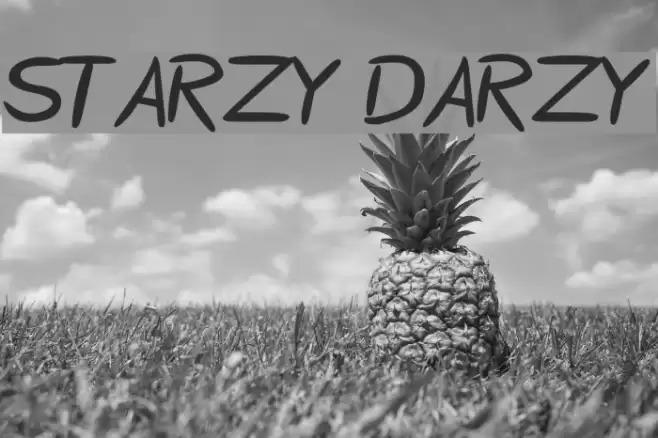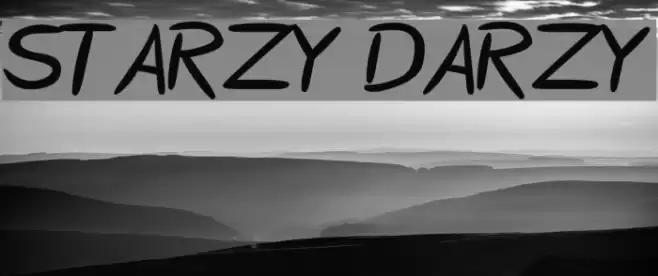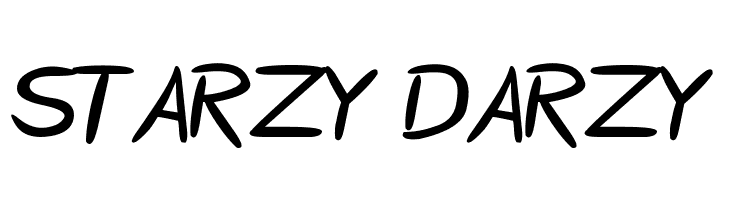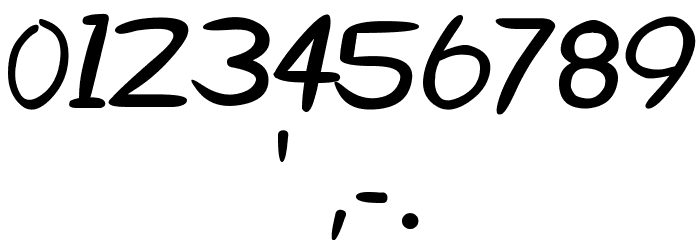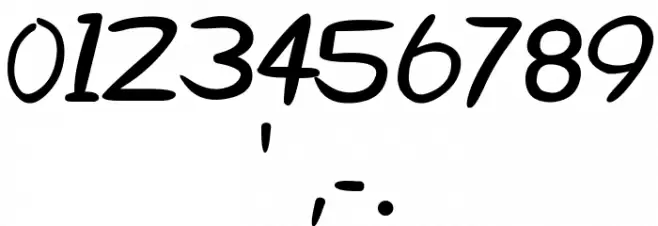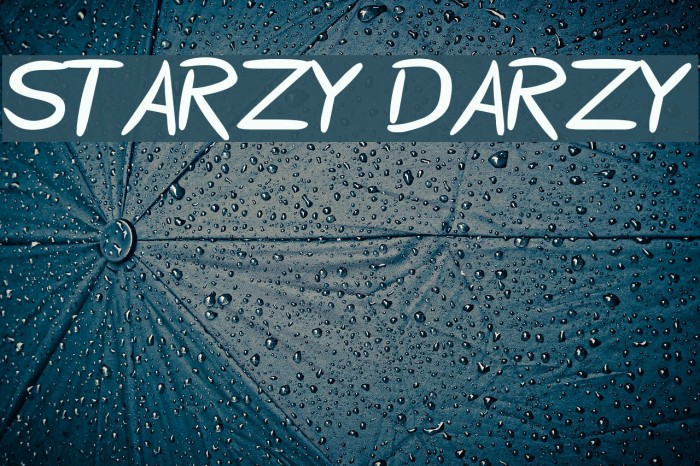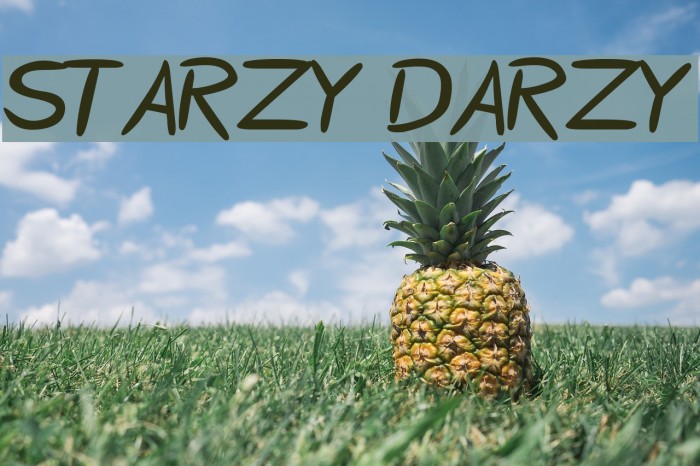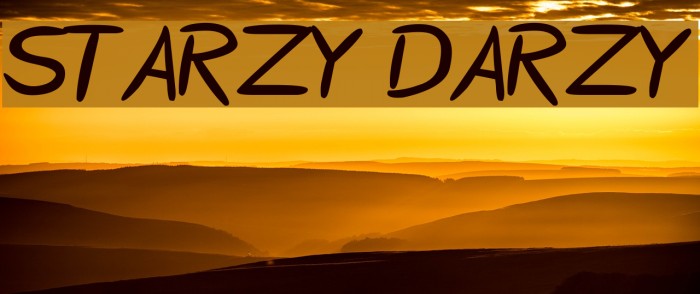
Starzy Darzy Font
Starzy Darzy Description
This font features a dynamic and energetic script style, characterized by its fluid, handwritten appearance. The letters are slightly slanted, giving a sense of motion and spontaneity. The strokes are smooth and consistent, with a medium thickness that provides good readability while maintaining an artistic flair. The uppercase and lowercase letters are well-balanced, and the numerals are clear and distinct. This font exudes a casual yet stylish vibe, making it suitable for creative projects.
A dynamic, handwritten script font with a smooth, fluid style from Uncategorized fonts.
- Proposed Projects: Ideal for greeting cards, invitations, branding, and social media graphics.
- Use Case: Logos, Headlines, Creative projects